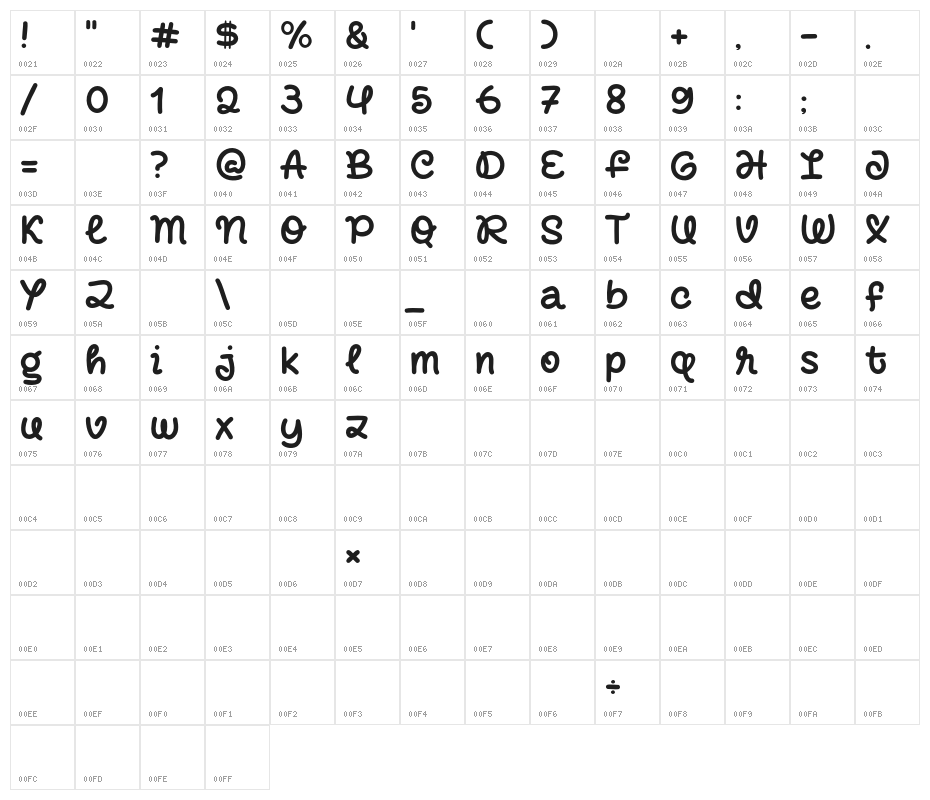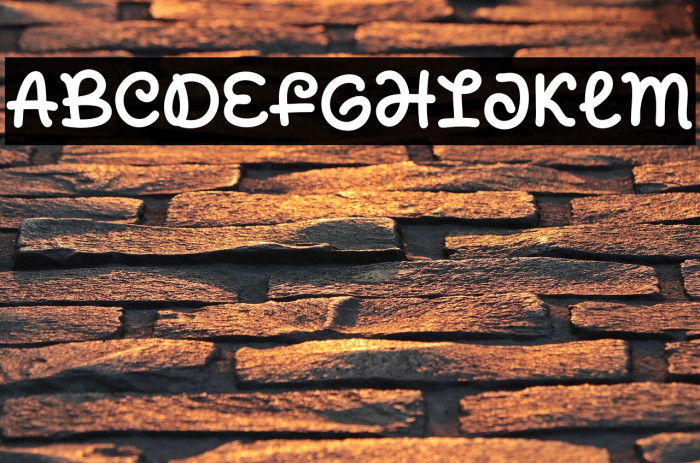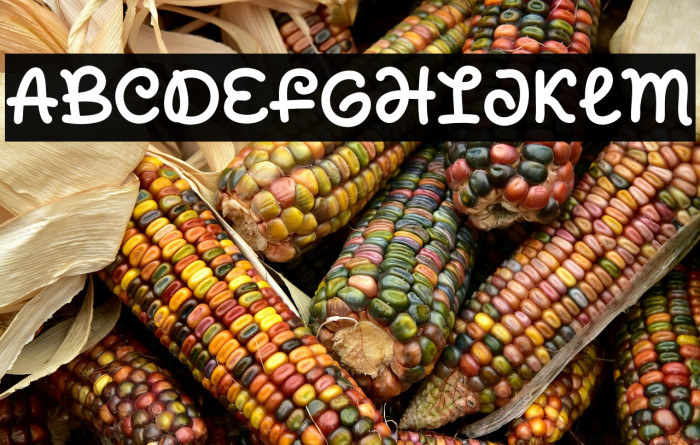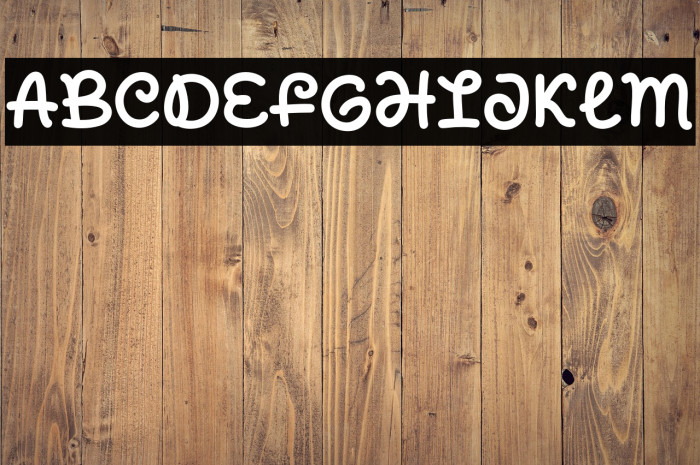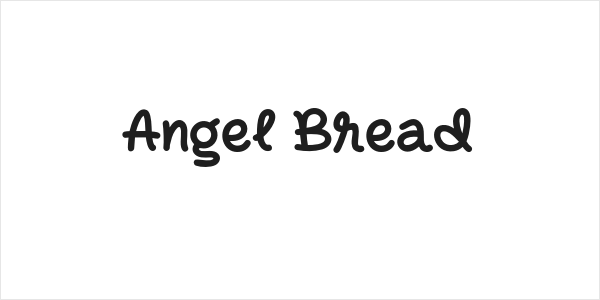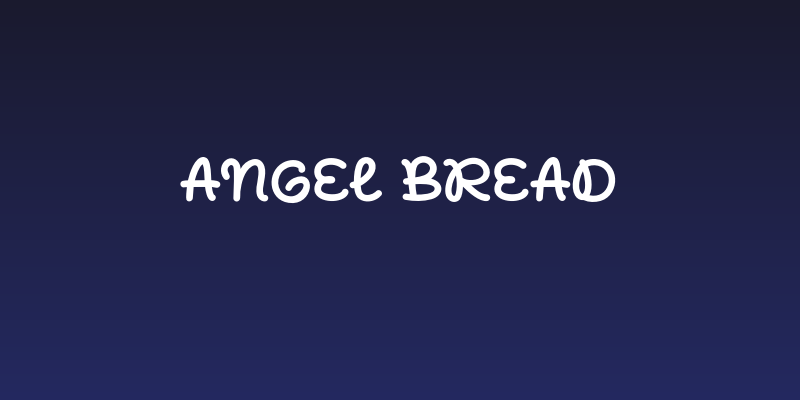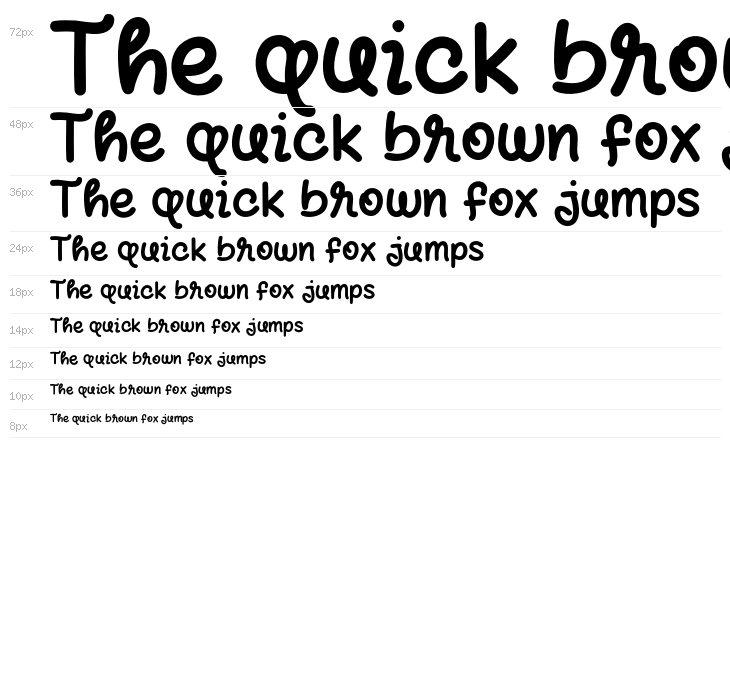
Angel Bread Font
Angel Bread Description
This font features a playful and whimsical style with rounded, bubbly characters that convey a sense of fun and creativity. The letters are bold and have a consistent thickness, giving them a strong presence on the page. The curves are smooth and flowing, adding to the font's approachable and friendly appearance. The numbers and special characters maintain the same playful aesthetic, ensuring a cohesive look across all text elements. This font is highly legible, making it suitable for a variety of design projects where a lighthearted and engaging tone is desired.
| Overall Style | Playful, Whimsical |
| Proposed Projects | Ideal for children's books, playful branding, party invitations, and creative posters. |